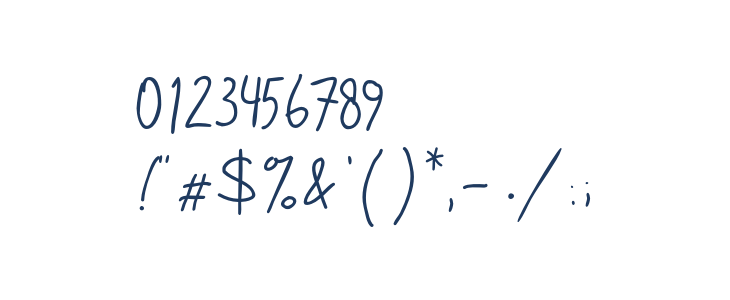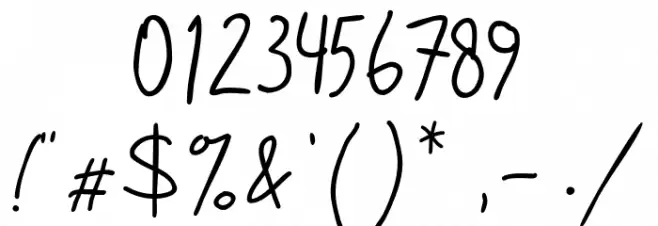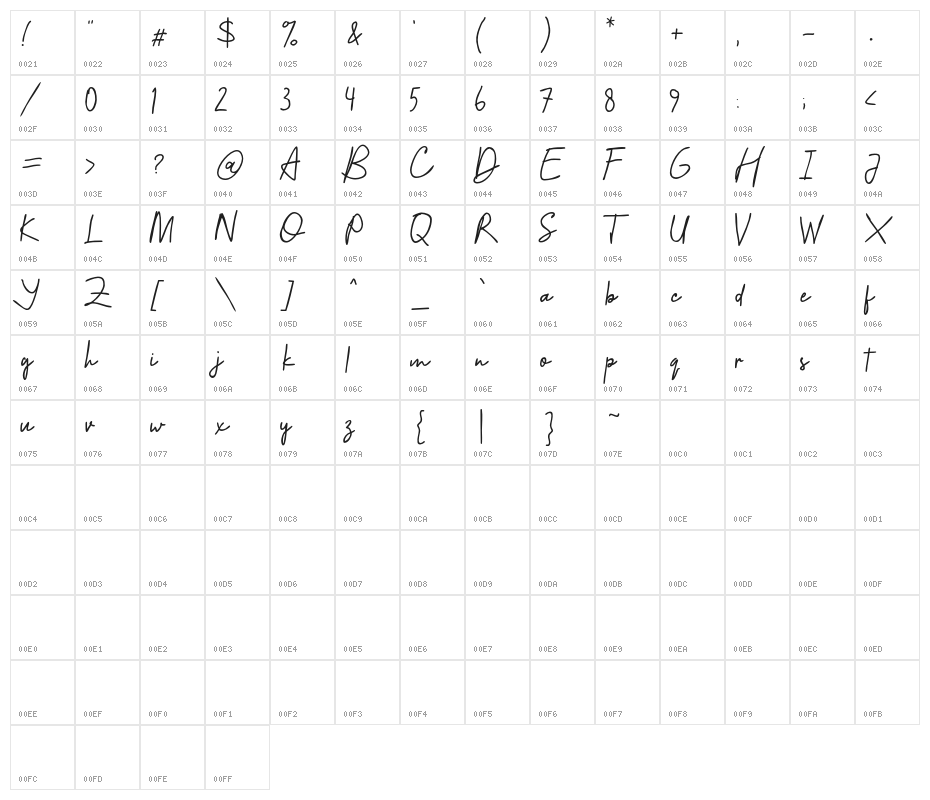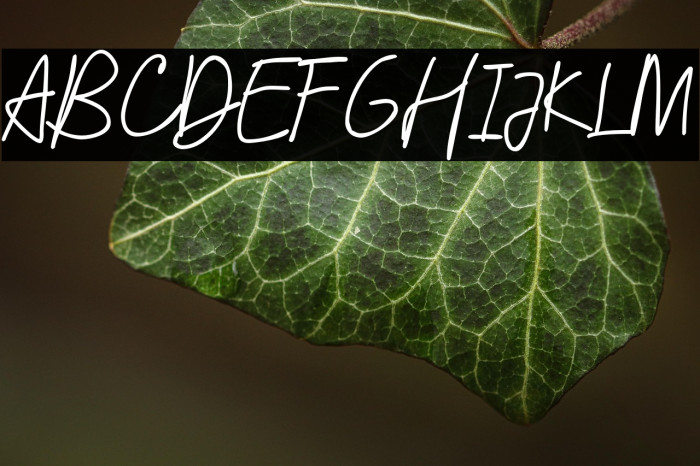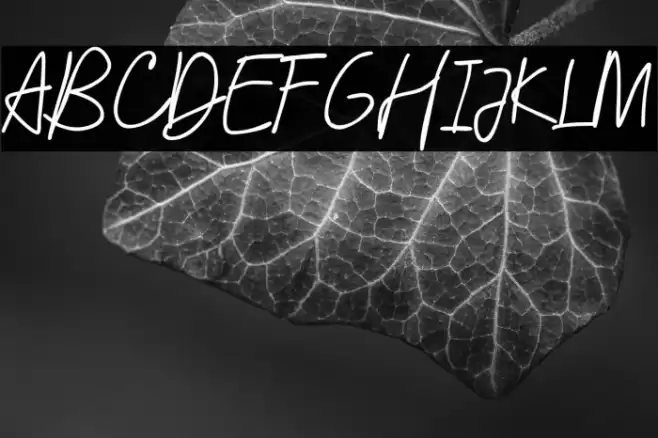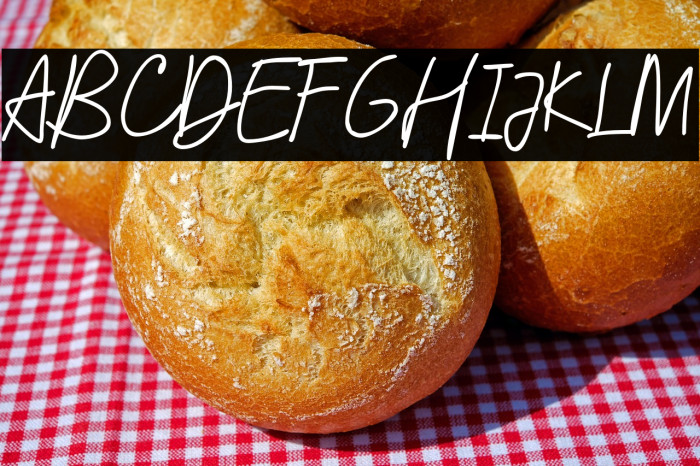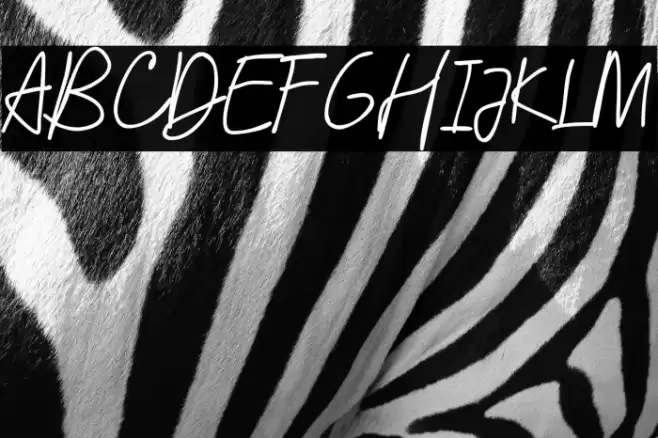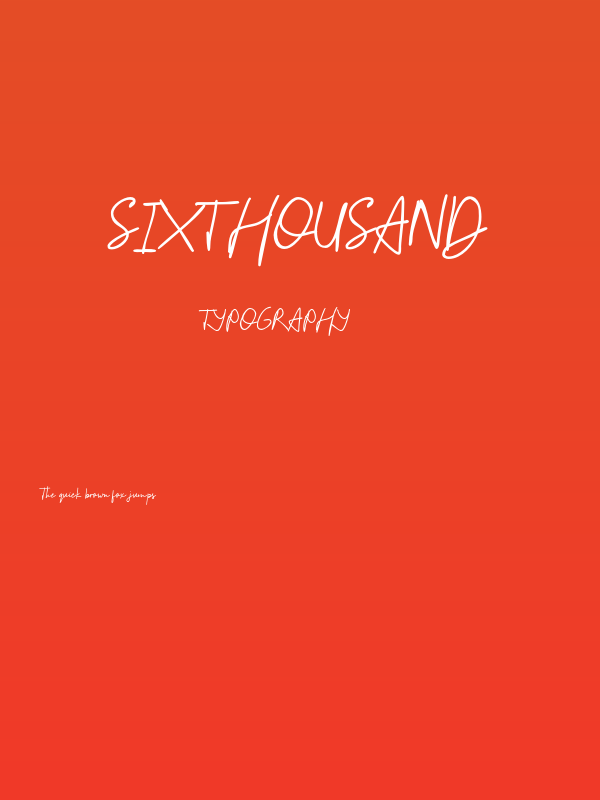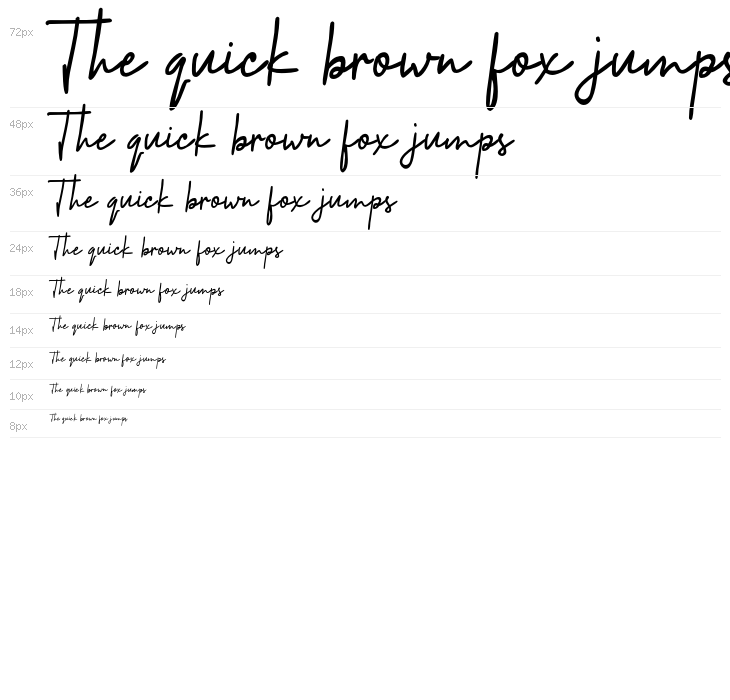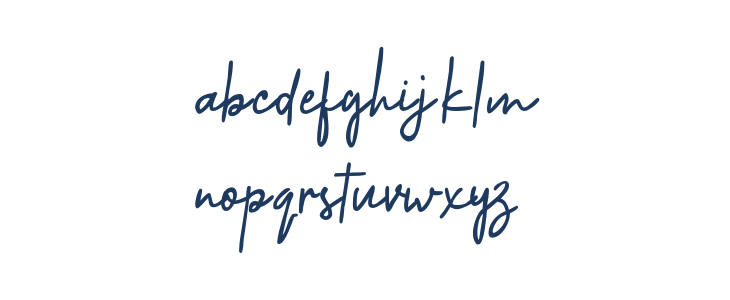
SixThousand Font
SixThousand Description
This font exudes a casual, handwritten style with a playful and dynamic appearance. The letters are characterized by their fluid, cursive strokes that mimic natural handwriting. The uppercase letters are tall and slightly slanted, while the lowercase letters maintain a consistent flow, enhancing the font's informal charm. Numbers and special characters follow the same handwritten aesthetic, adding to the cohesive look. The overall design is approachable and friendly, making it suitable for projects that require a personal touch.
| Use Case | Logos, Invitations, Personal Notes |
| Proposed Projects | Ideal for greeting cards, personal notes, invitations, and creative branding projects. |